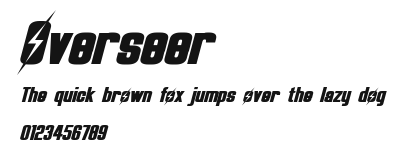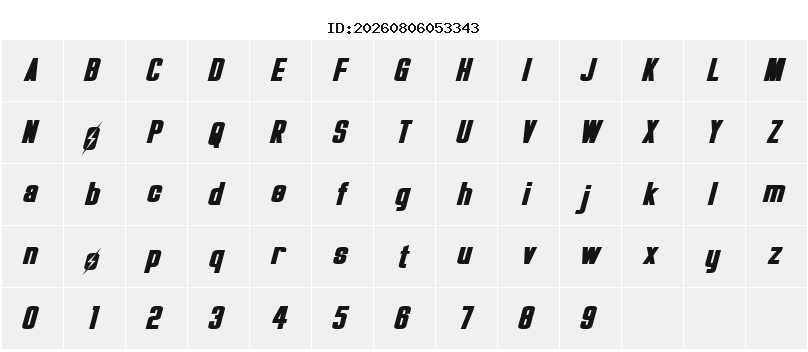
• Font Name: Overseer
• Designer: Neale Davidson
About Overseer.ttf
Overseer.ttf is a modern, elegant sans-serif font designed for ultimate readability and visual harmony. Perfect for branding, headlines, web design, and print materials.